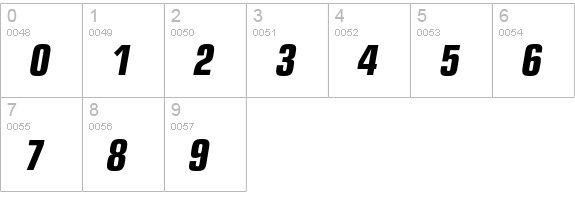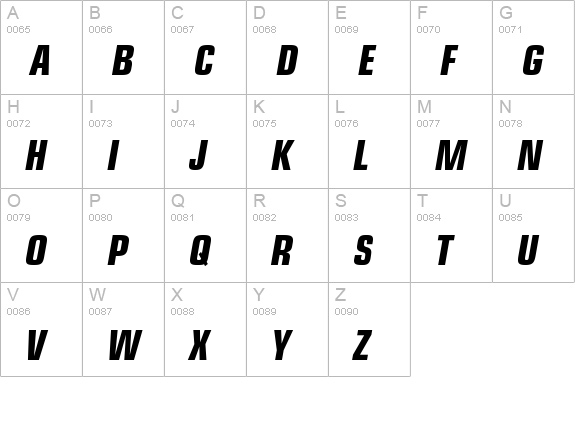
EuropeCond Bold Italic Font Details
EuropeCond Bold Italic is a strong, high-contrast, italic variant in the EuropeCond typeface family \xE2\x80\x94 well suited to headlines, attention-grabbing titles, and strong calls-to-action.
EuropeCond Bold Italic is a stylish and modern font that exudes sophistication and professionalism. With its bold and italicized design, this typeface is perfect for making a statement in your designs. The sleek and contemporary look of EuropeCond Bold Italic makes it ideal for a wide range of projects, from branding to editorial design. What sets EuropeCond Bold Italic apart is not only its aesthetic appeal but also its versatility. Whether you are designing a logo, poster, website, or any other graphic project, this font will add a touch of elegance and flair. And the best part? EuropeCond Bold Italic is available for free download at FontsMarket.com. So go ahead and elevate your designs with this stunning typeface without breaking the bank. Download EuropeCond Bold Italic today and make your projects stand out with its bold and italicized charm.